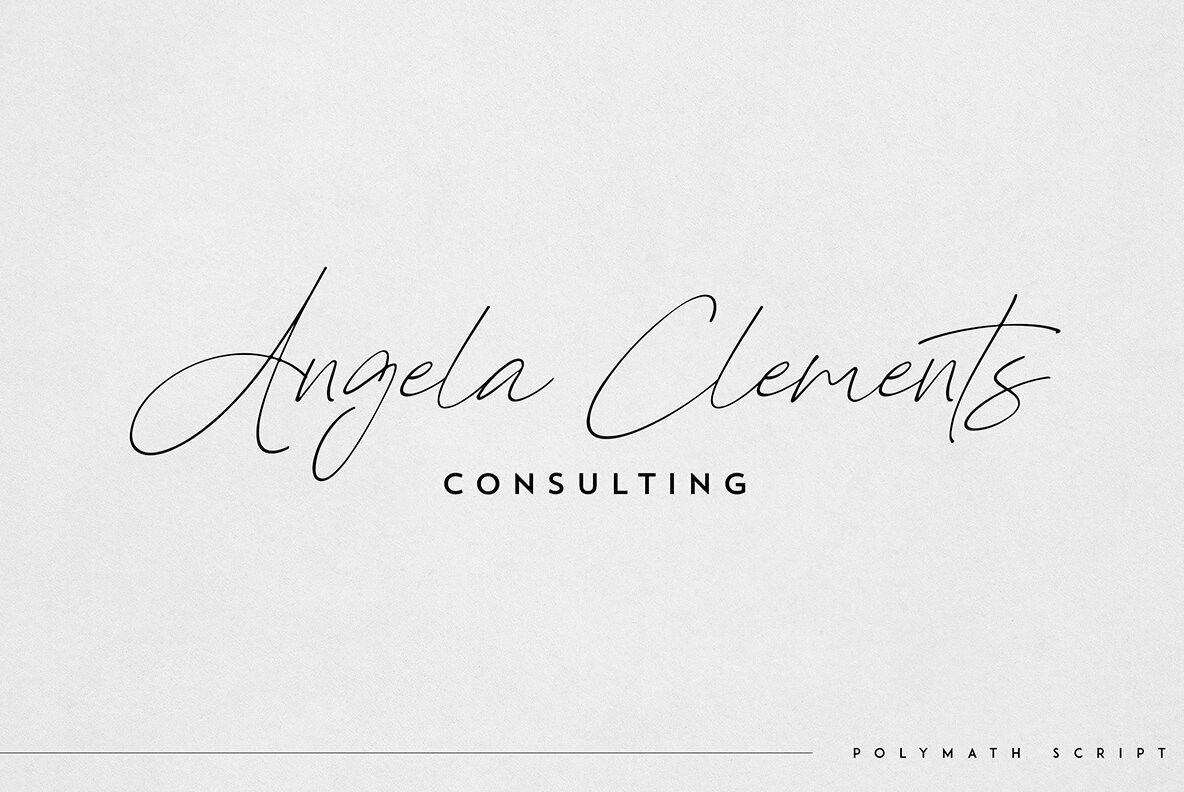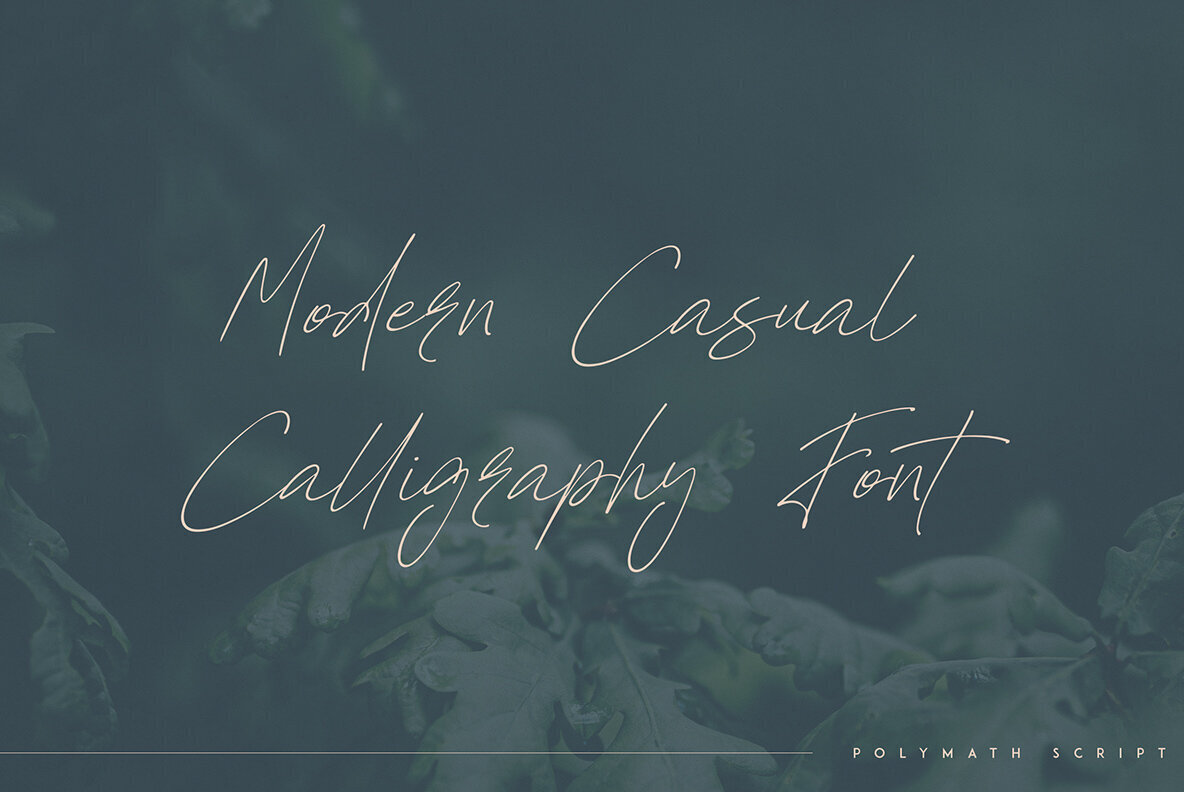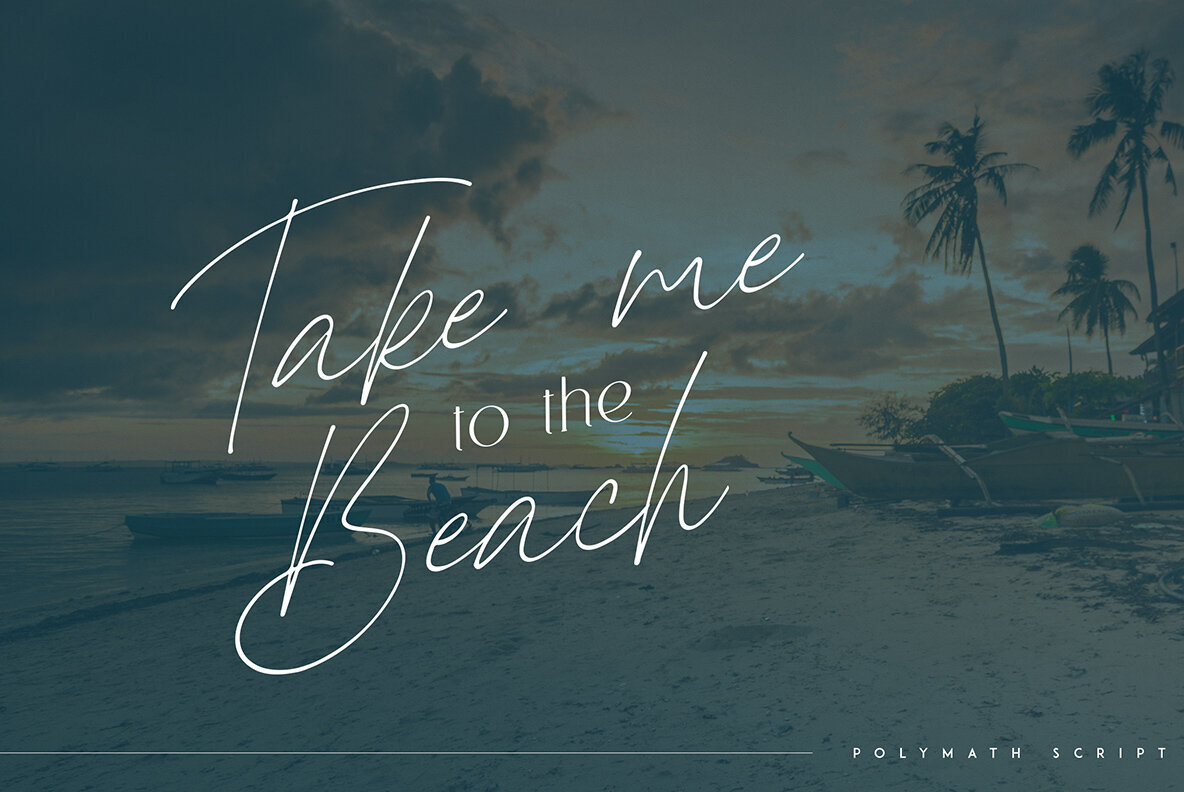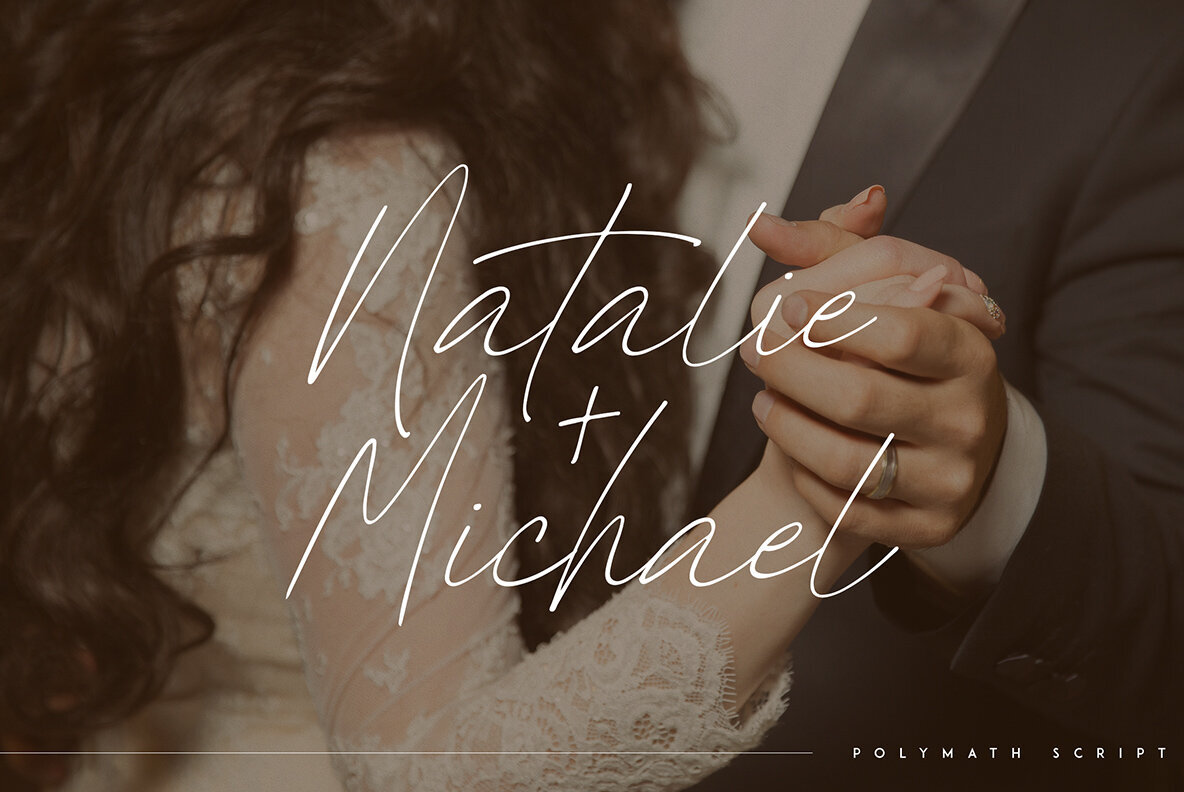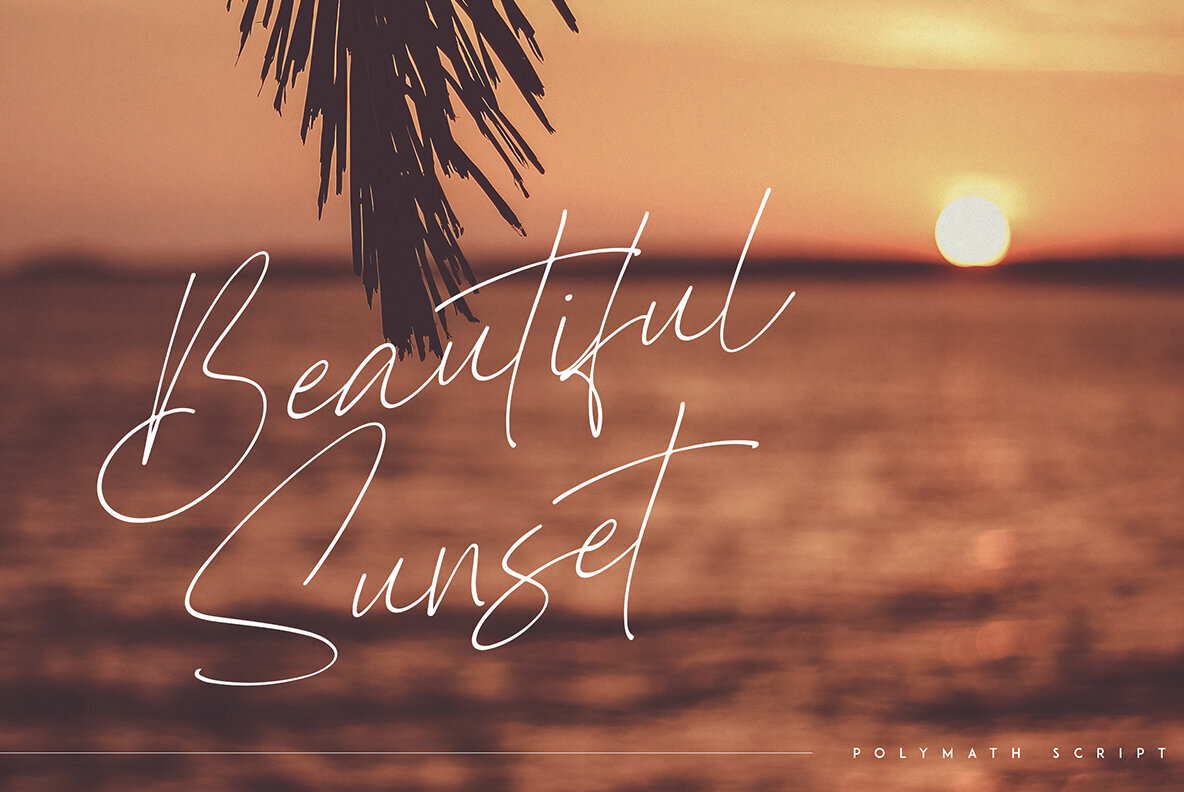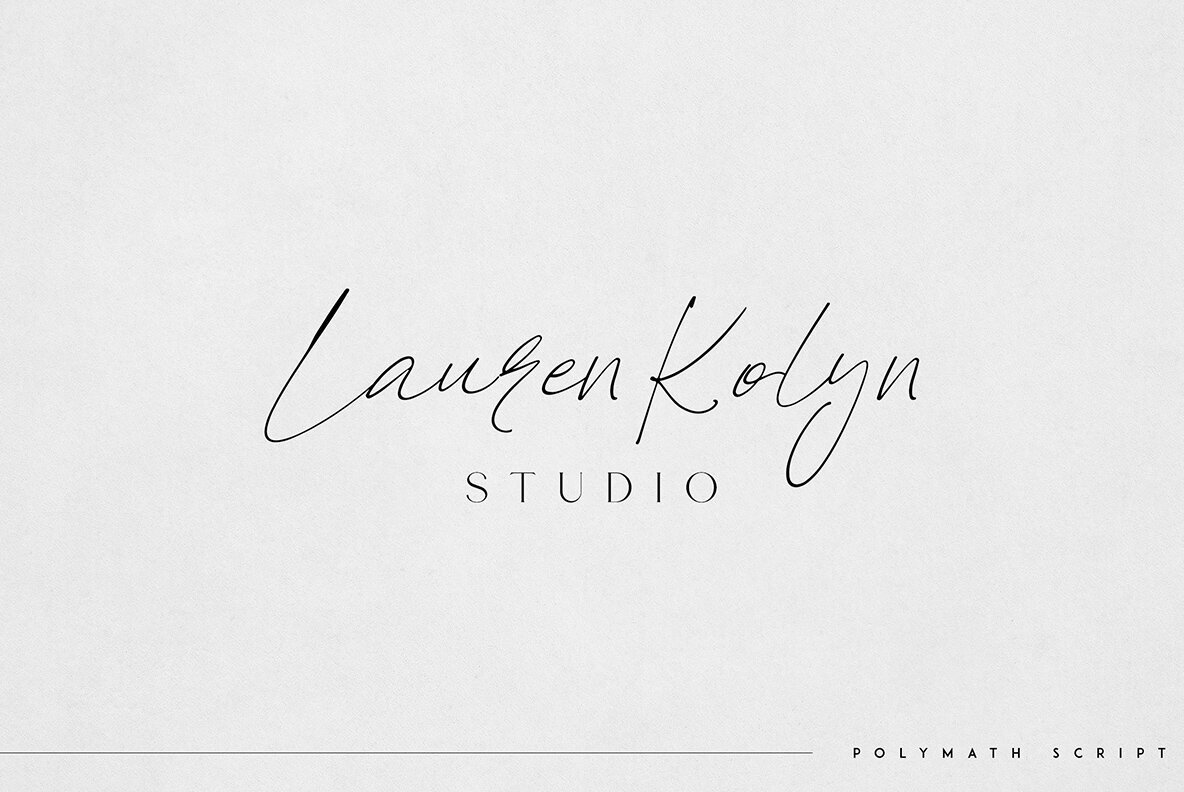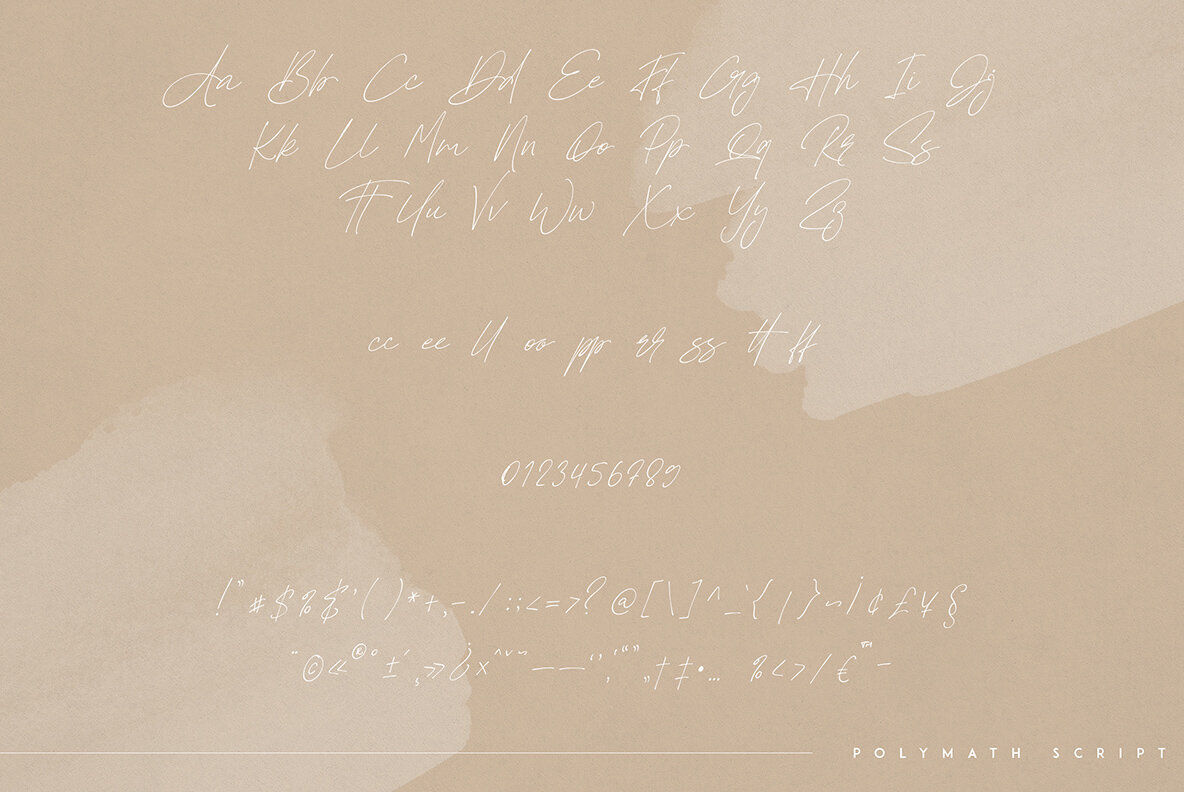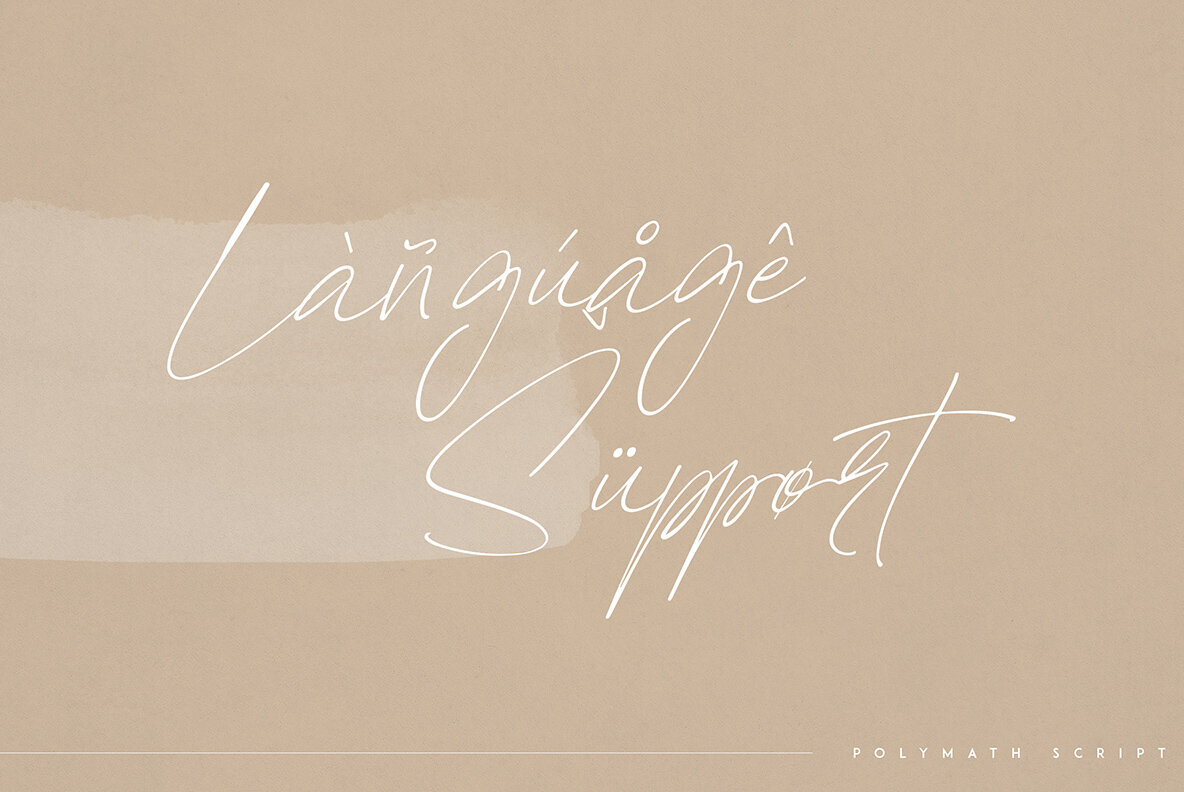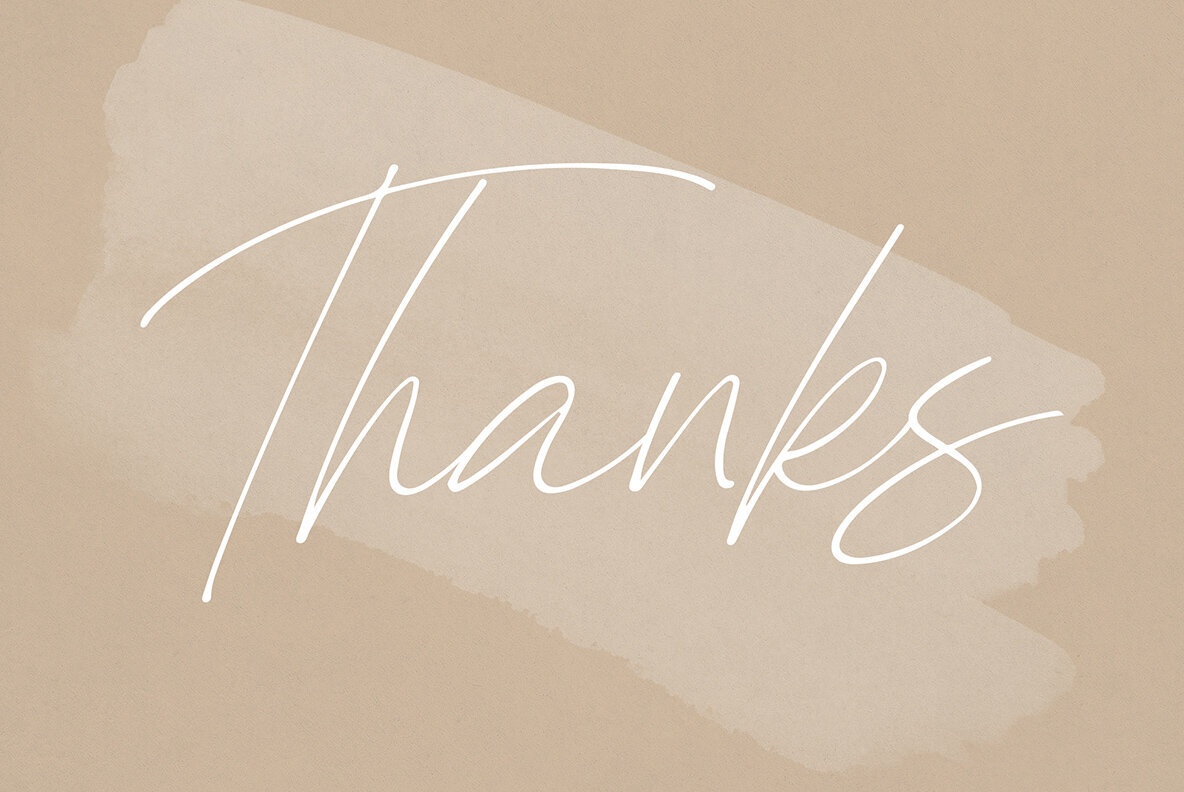
Polymath Font
Polymath embodies a modern and organic script style, infused with a comprehensive set of ligature glyphs and robust multilingual support. Its adaptability makes it a superb choice for various applications, seamlessly thriving in both large and small formats. This font excels in branding projects, homeware design, and product packaging. Its elegant form is ideal for magazine headers and as a sophisticated text overlay on background images. Features:Polymath: A Versatile Organic Script